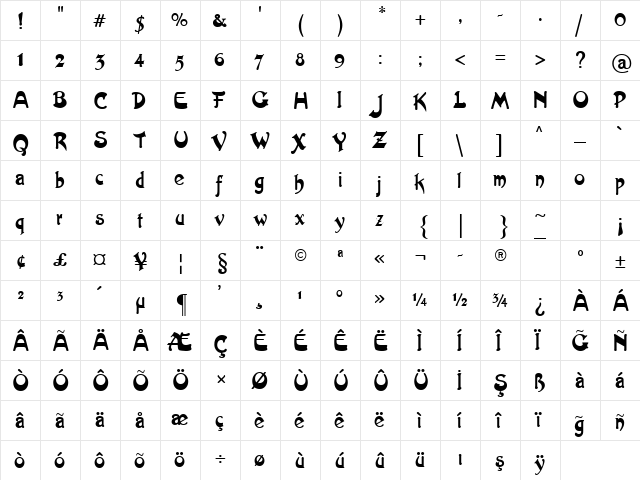
TR Artistik Regular
Design Context for TR Artistik Typeface
TR Artistik is a composed and adaptable typeface that performs quietly and consistently across a wide range of design contexts.